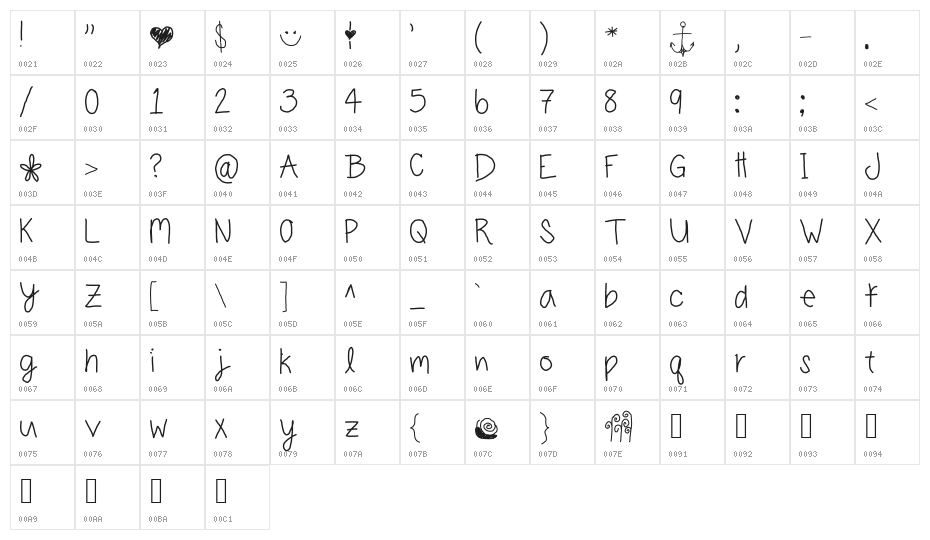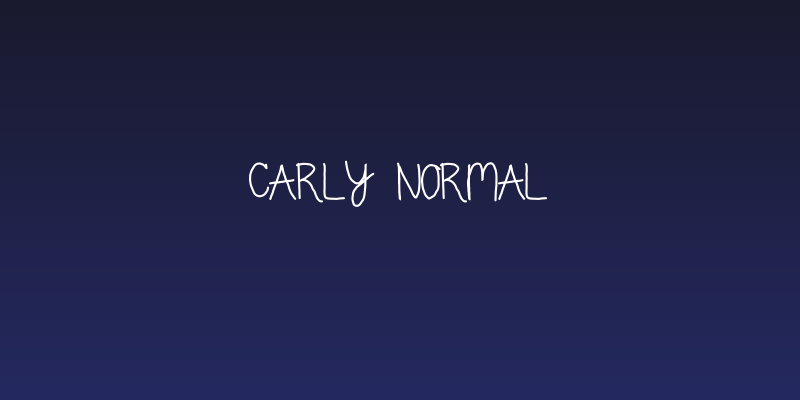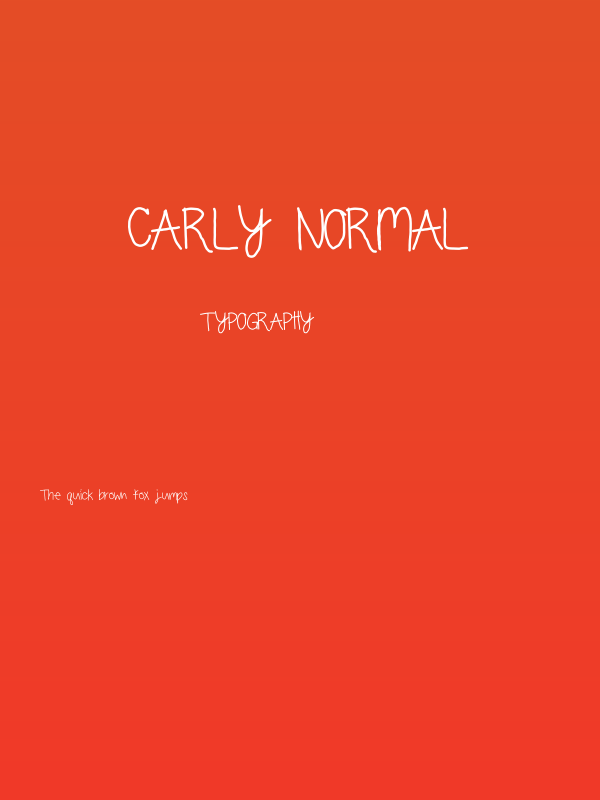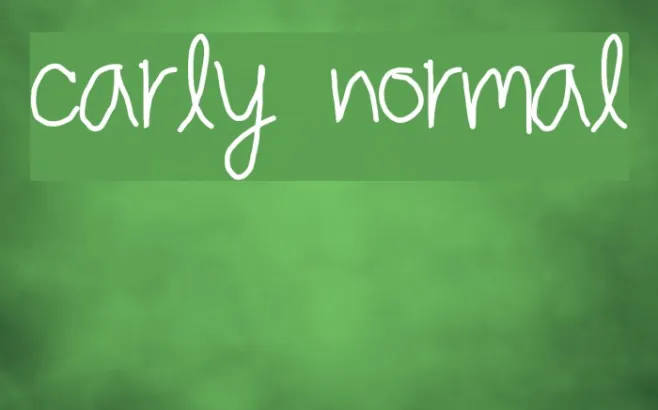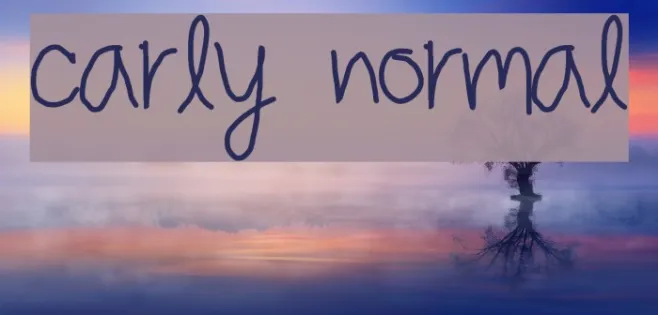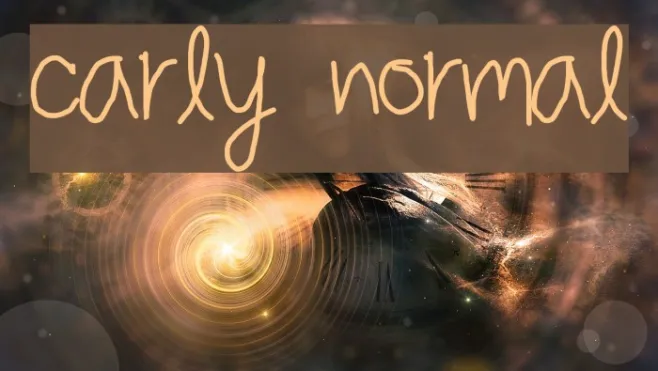
carly normal Font
carly normal Description
This font features a playful, handwritten style with a casual and informal appearance. The letters are slightly irregular, giving it a personal and friendly feel. The strokes are consistent in width, contributing to a uniform look despite the informal style. The uppercase and lowercase letters maintain a cohesive design, with rounded edges and a slight tilt that adds to the whimsical nature. Numbers and special characters follow the same playful aesthetic, making this font suitable for creative and informal projects.